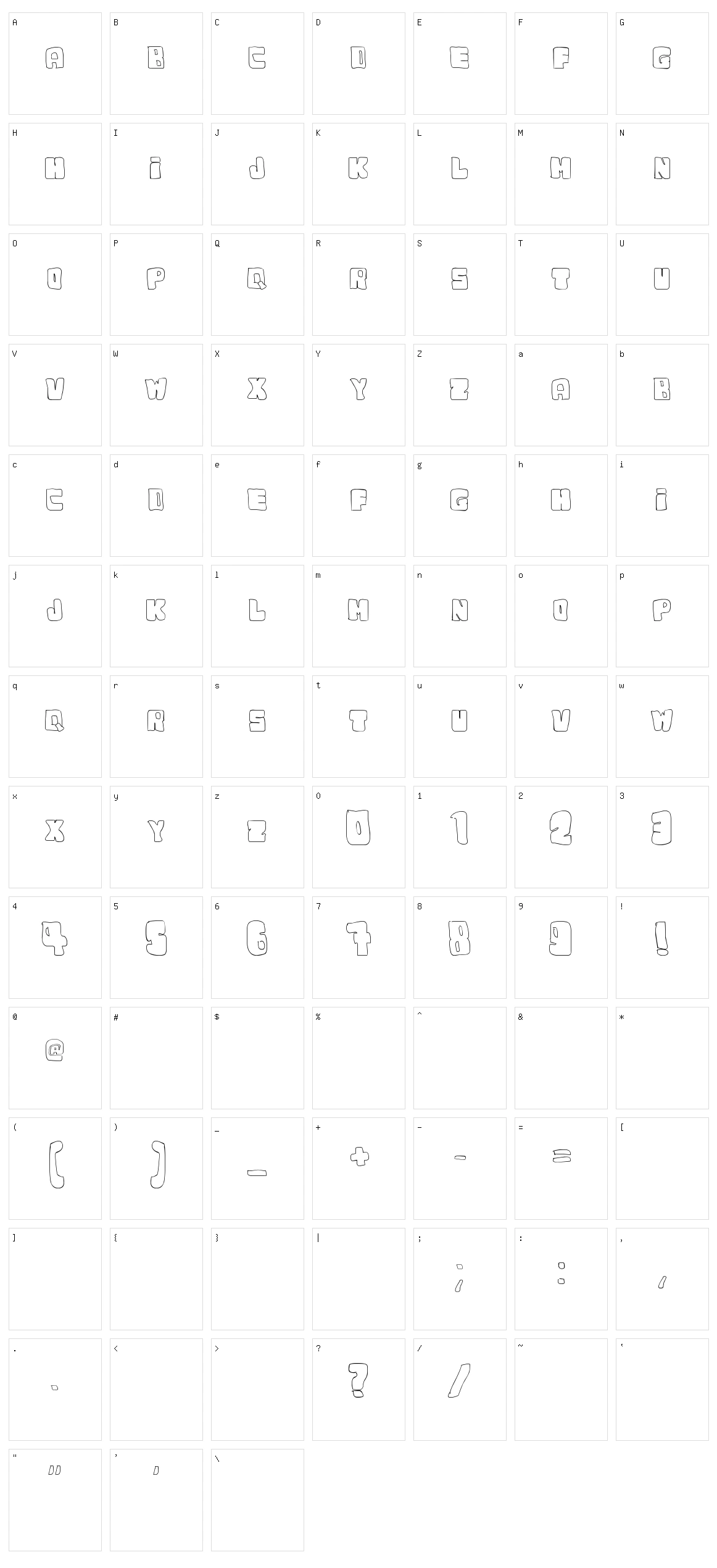
The free font Dudufont is carefully designed by du2, showcasing a thoughtful balance of creativity and usability and falls under the Cartoon font style. When you download the ZIP file, it contains only 14.31 KB of font files, making it lightweight and quick to download. Please review the license details below to understand permitted usage and distribution rights. If license information is not available, we recommend using this font for personal projects only or contacting the author directly for commercial usage permissions.